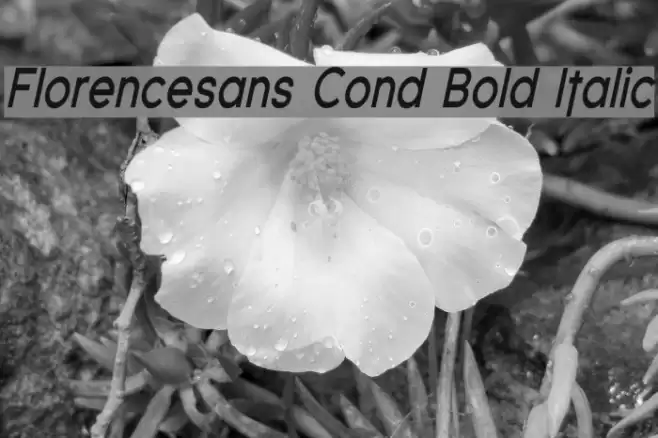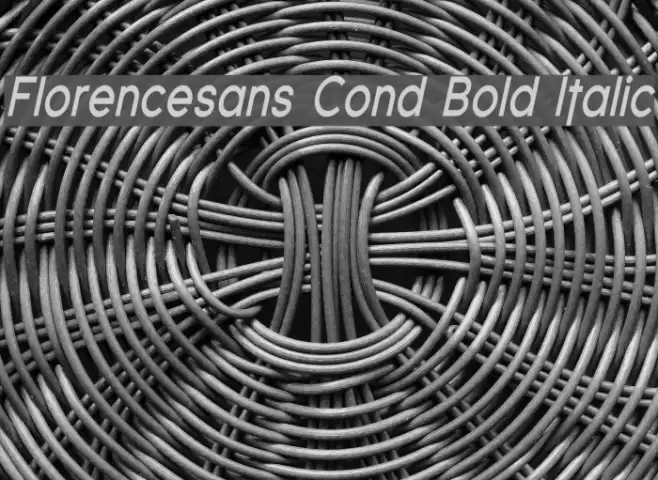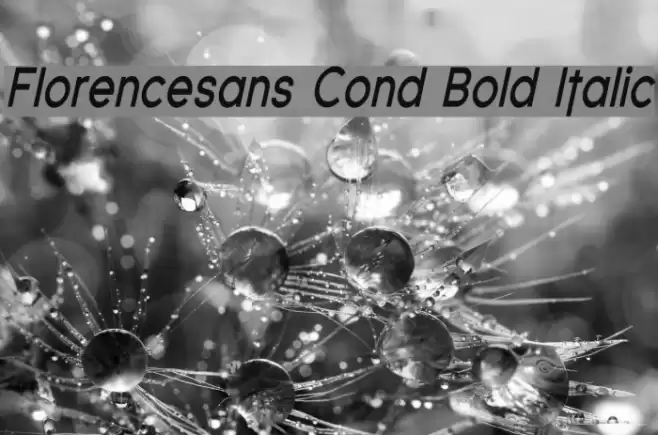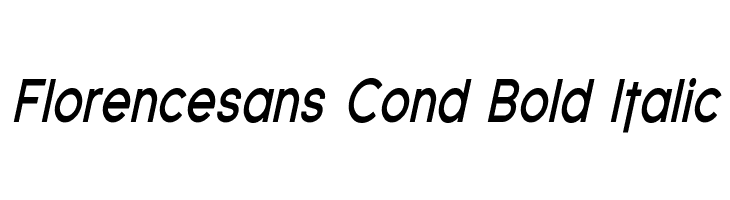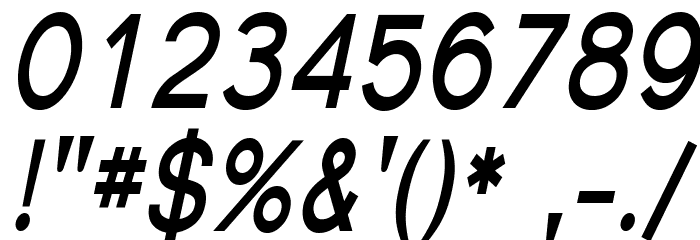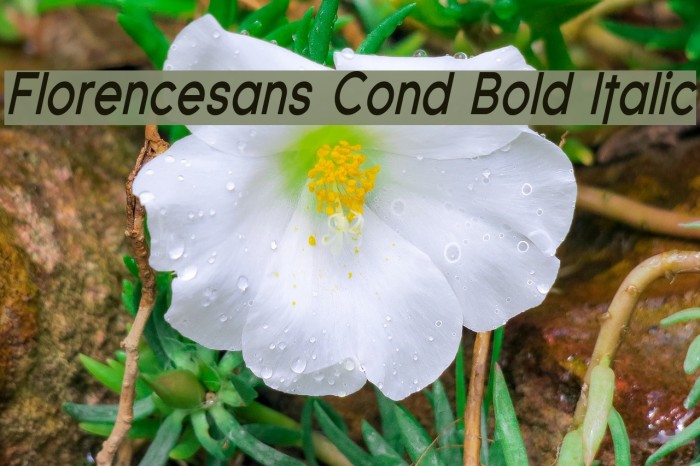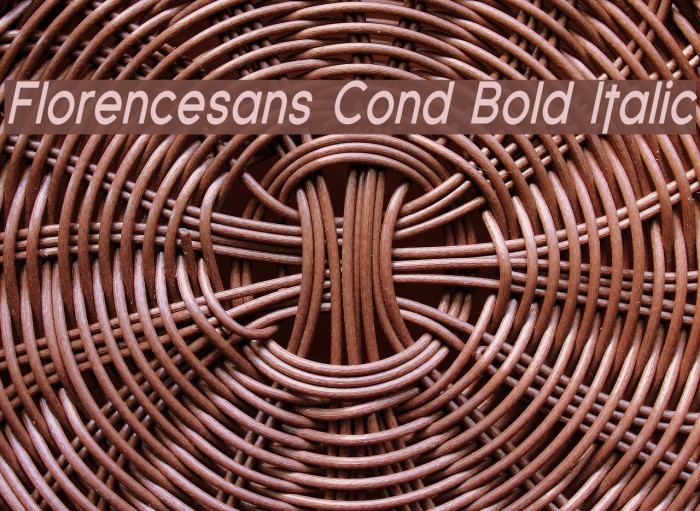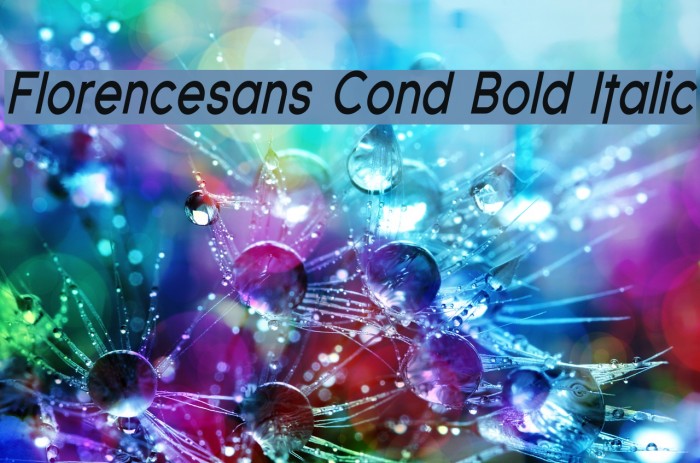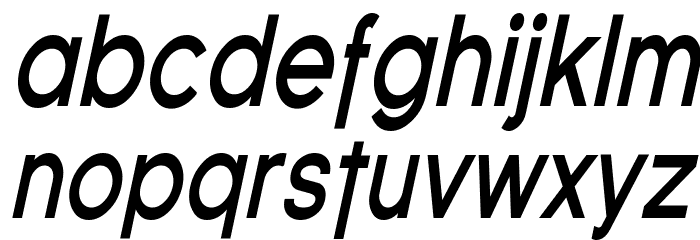
Florencesans Cond Bold Italic Font
Florencesans Cond Bold Italic Description
This font features a sleek and modern sans-serif style with a condensed form, giving it a bold and dynamic appearance. The italicized letters add a sense of motion and elegance, making it suitable for contemporary design projects. The characters are well-defined with a consistent stroke width, providing a clean and professional look. The spacing between characters is tight, enhancing its compact and efficient design. This font is versatile and can be used in various applications where a modern and assertive typeface is desired.
A modern, condensed sans-serif font with bold, italicized characters from Sans Serif fonts.
- Proposed Projects: Ideal for branding, advertising, headlines, and digital media where a strong, modern presence is needed.
- Character Spacing: Tight
- Use Case: Headlines, Logos, Advertising